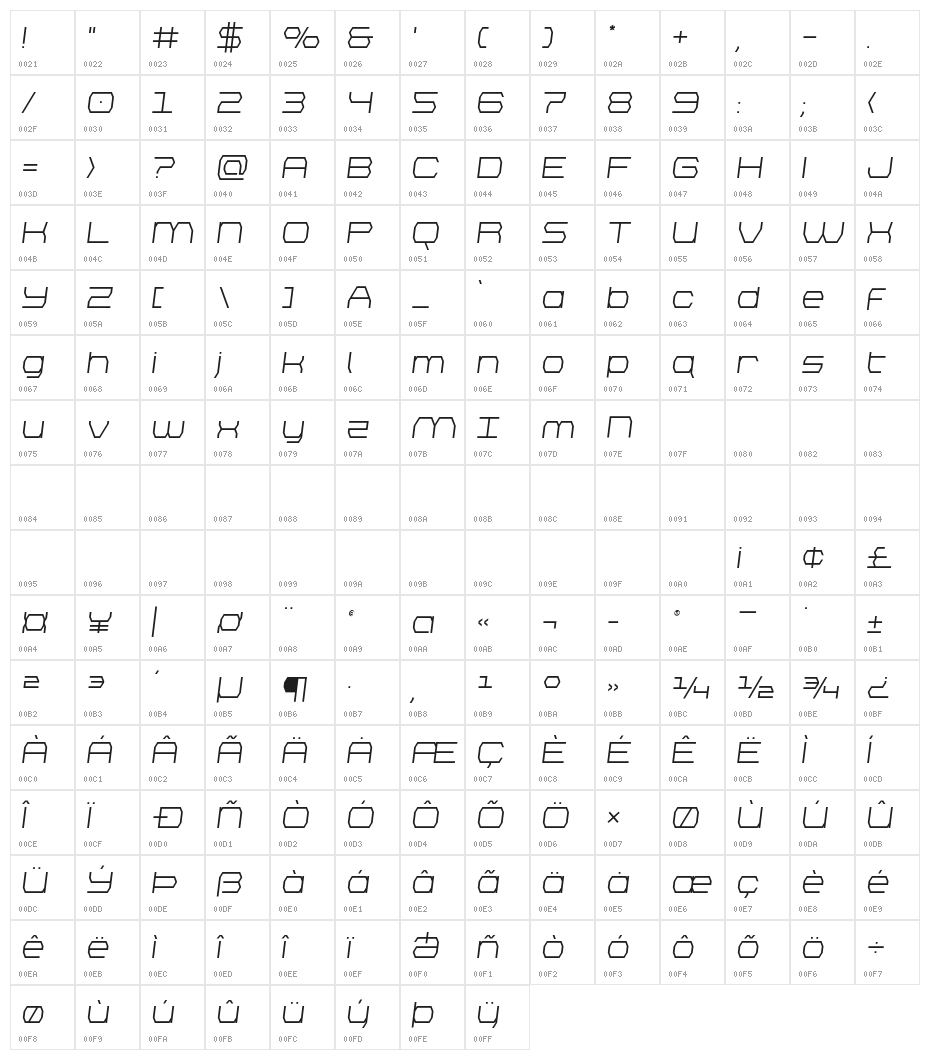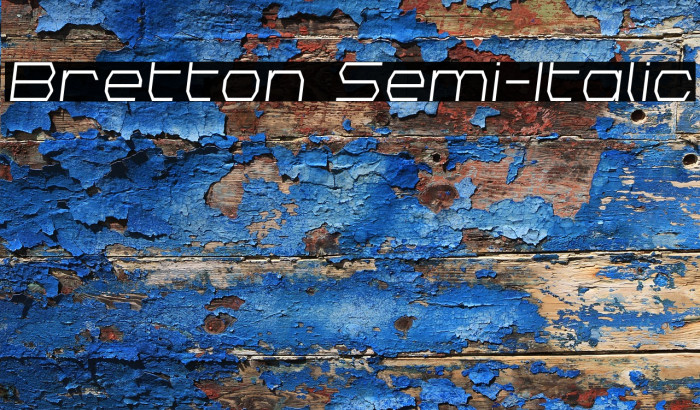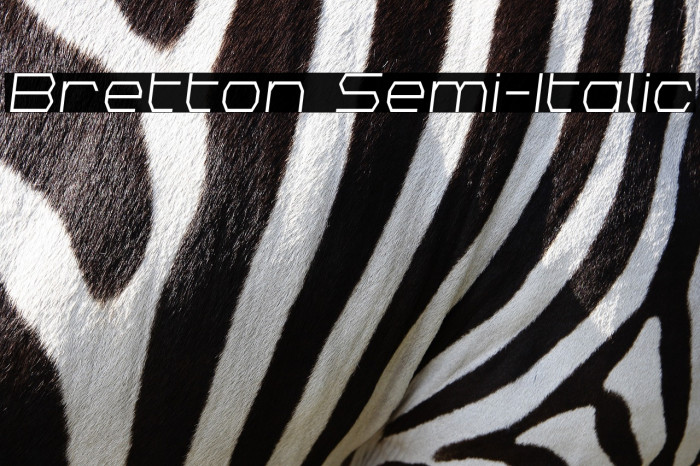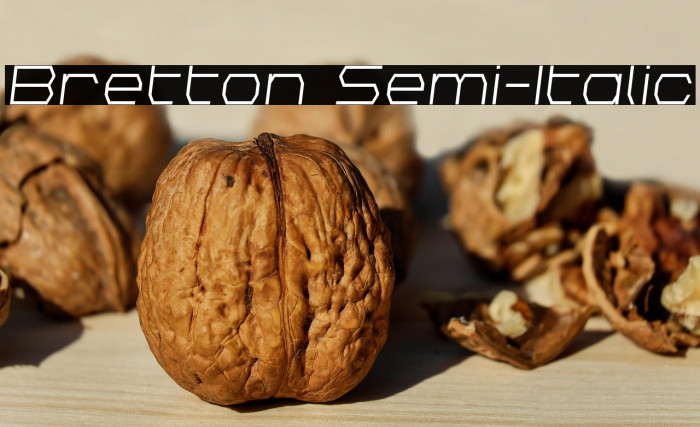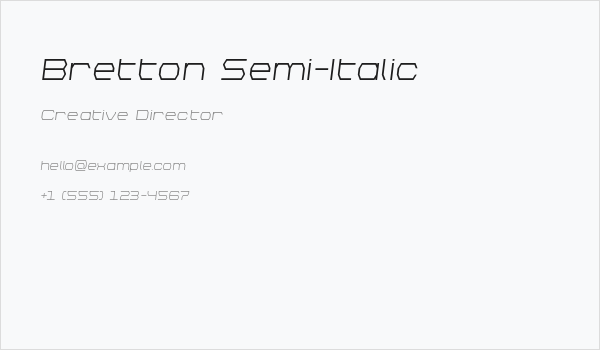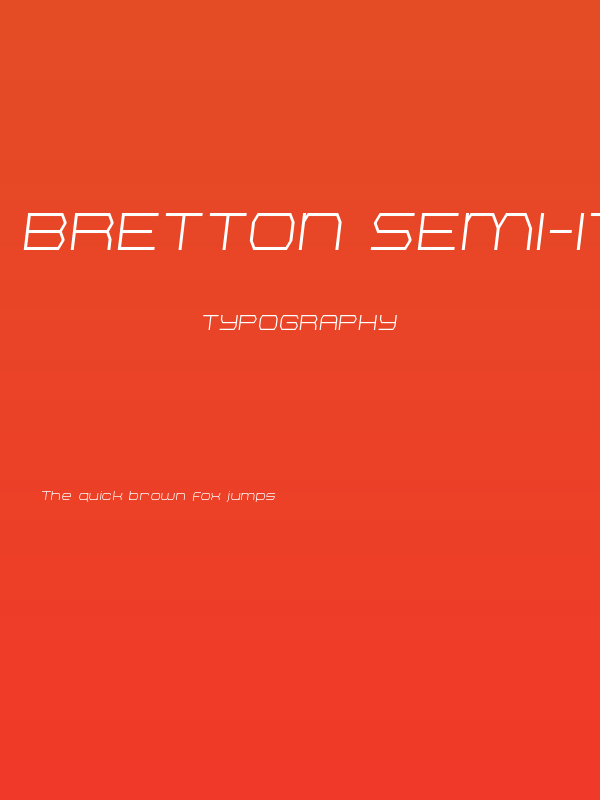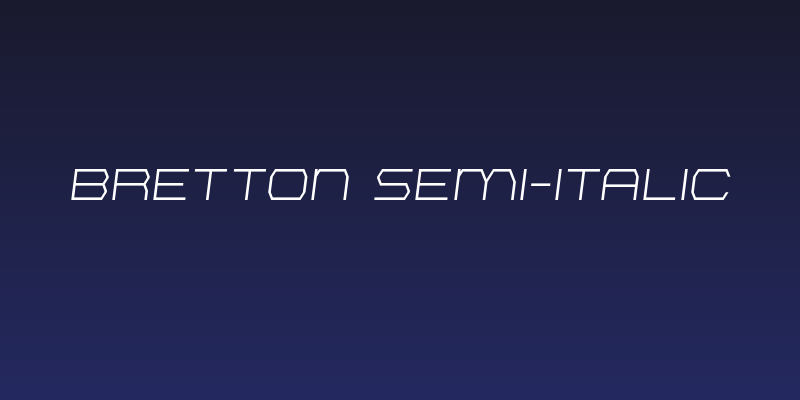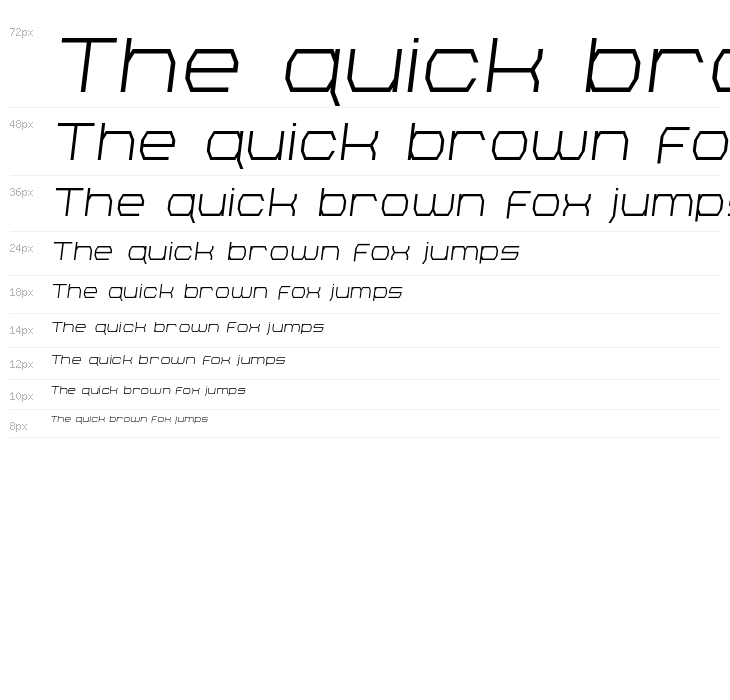
Bretton Semi-Italic Font
Bretton Semi-Italic Description
This font features a modern, geometric design with a semi-italic slant, giving it a dynamic and forward-moving appearance. The characters are constructed with clean, straight lines and sharp angles, creating a futuristic and technical feel. The uppercase and lowercase letters maintain a consistent style, with a slight inclination that adds a sense of motion. The numerals and special characters follow the same design principles, ensuring uniformity across all glyphs. The overall aesthetic is sleek and minimalistic, making it suitable for contemporary design projects.
Overall StyleModern, Futuristic
Use CaseHeadlines, Logos, Digital Interfaces
Proposed ProjectsIdeal for technology branding, modern advertising, futuristic posters, and digital interfaces.